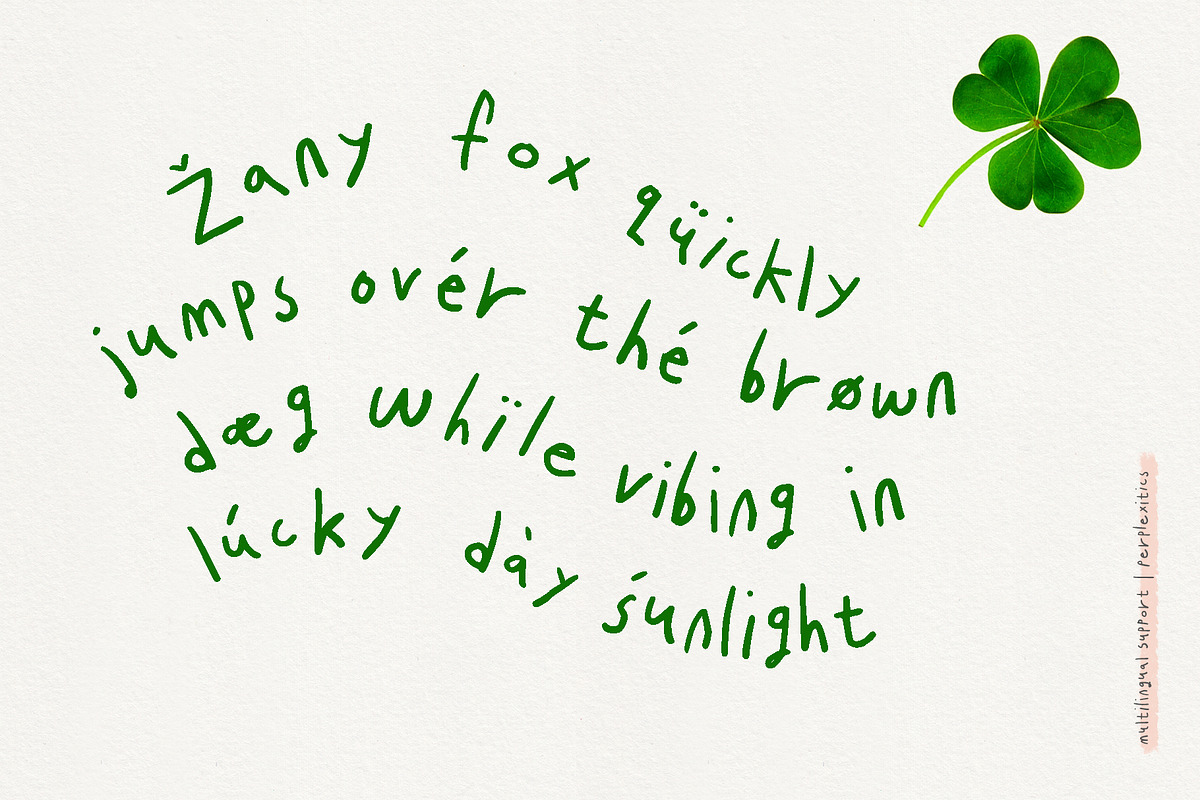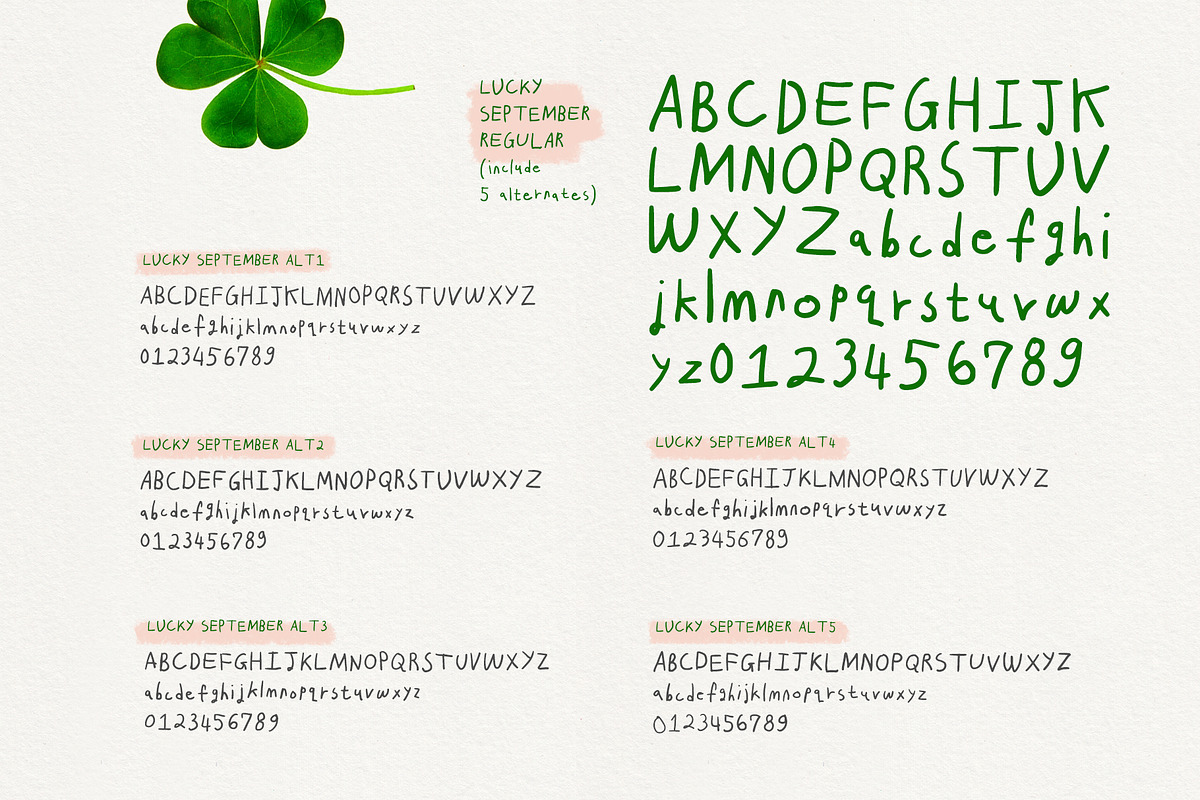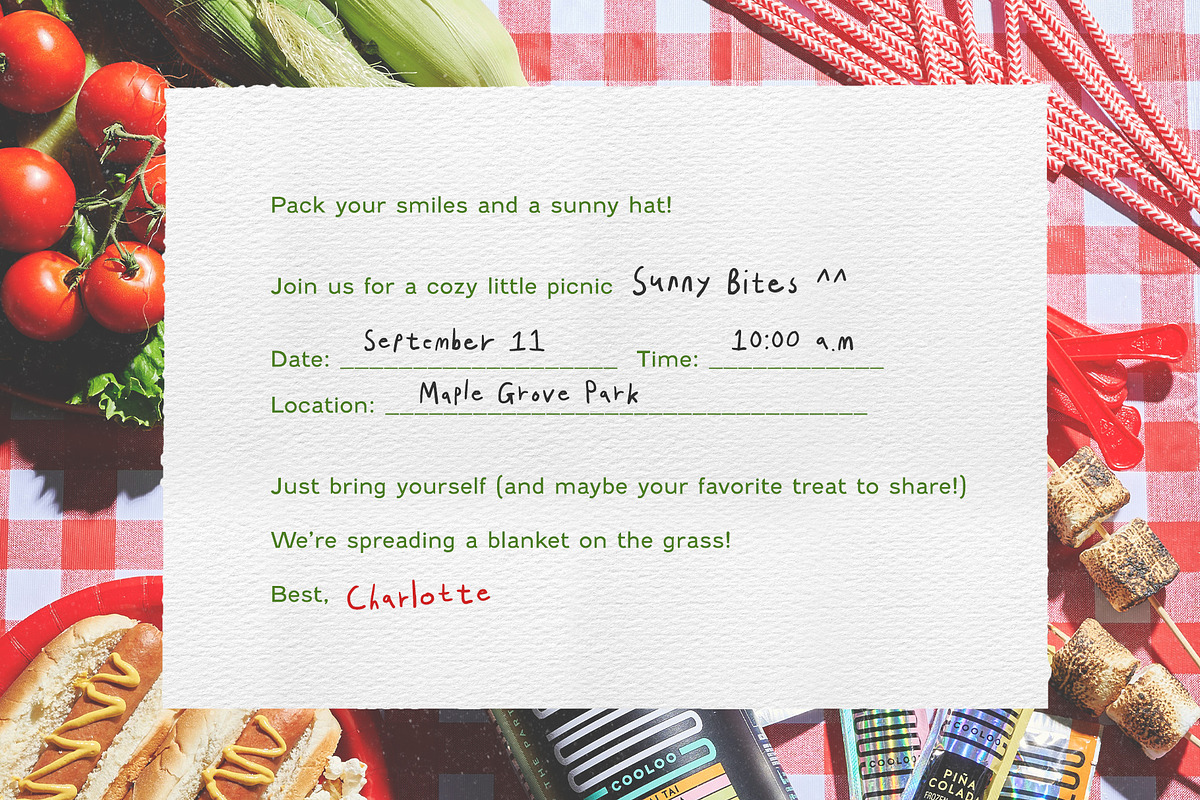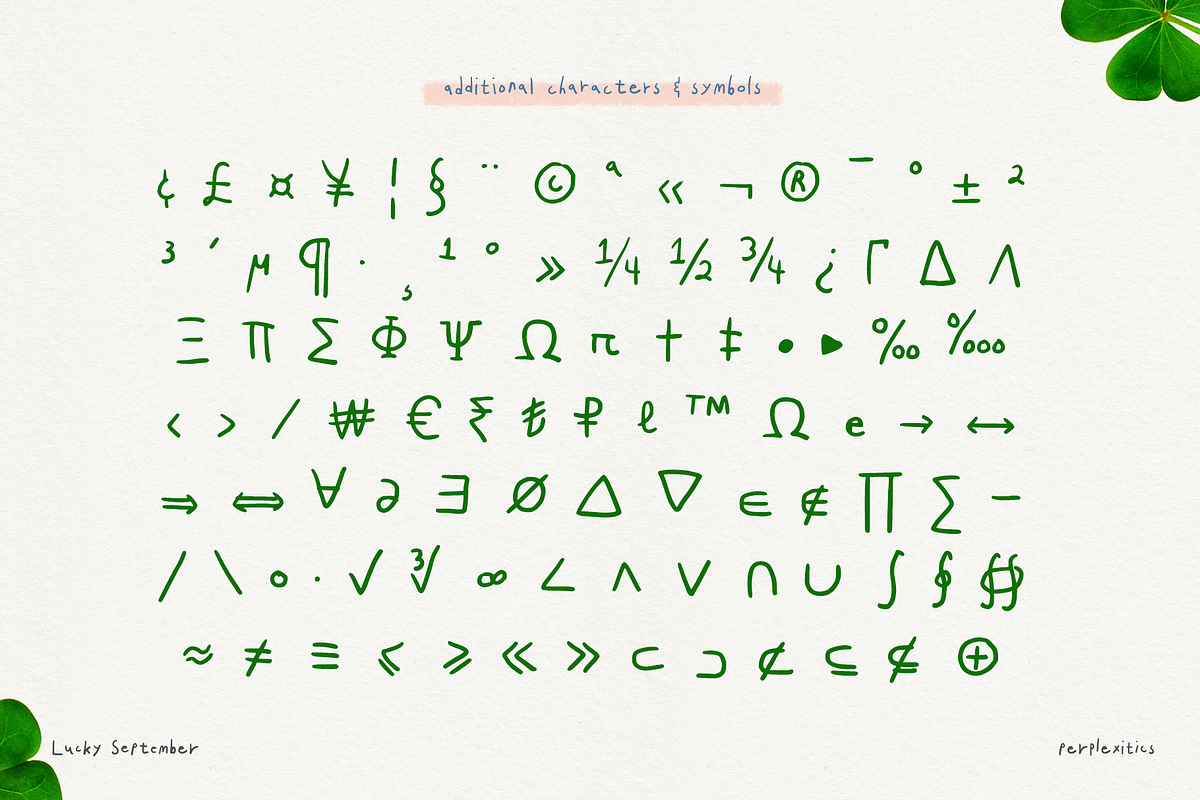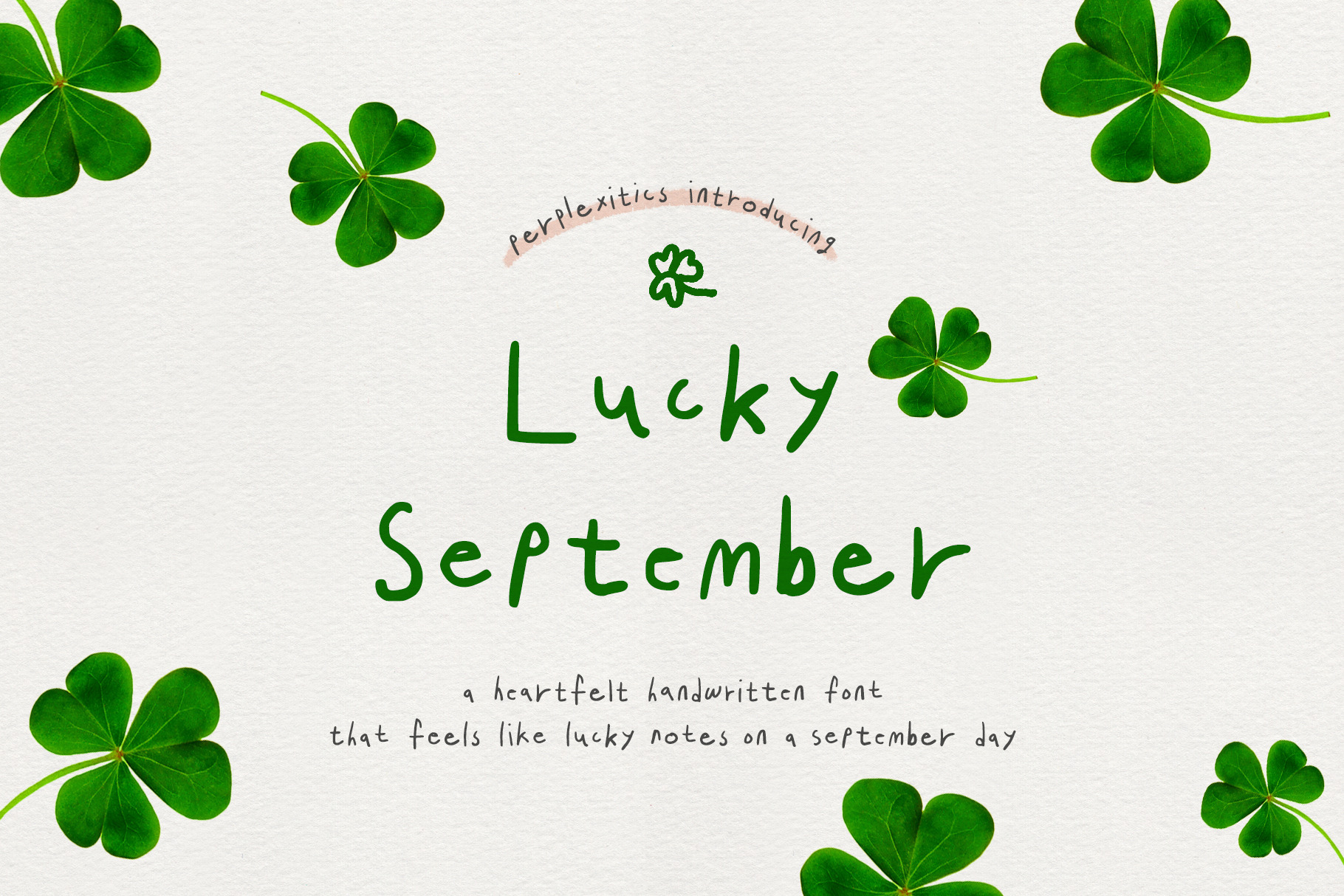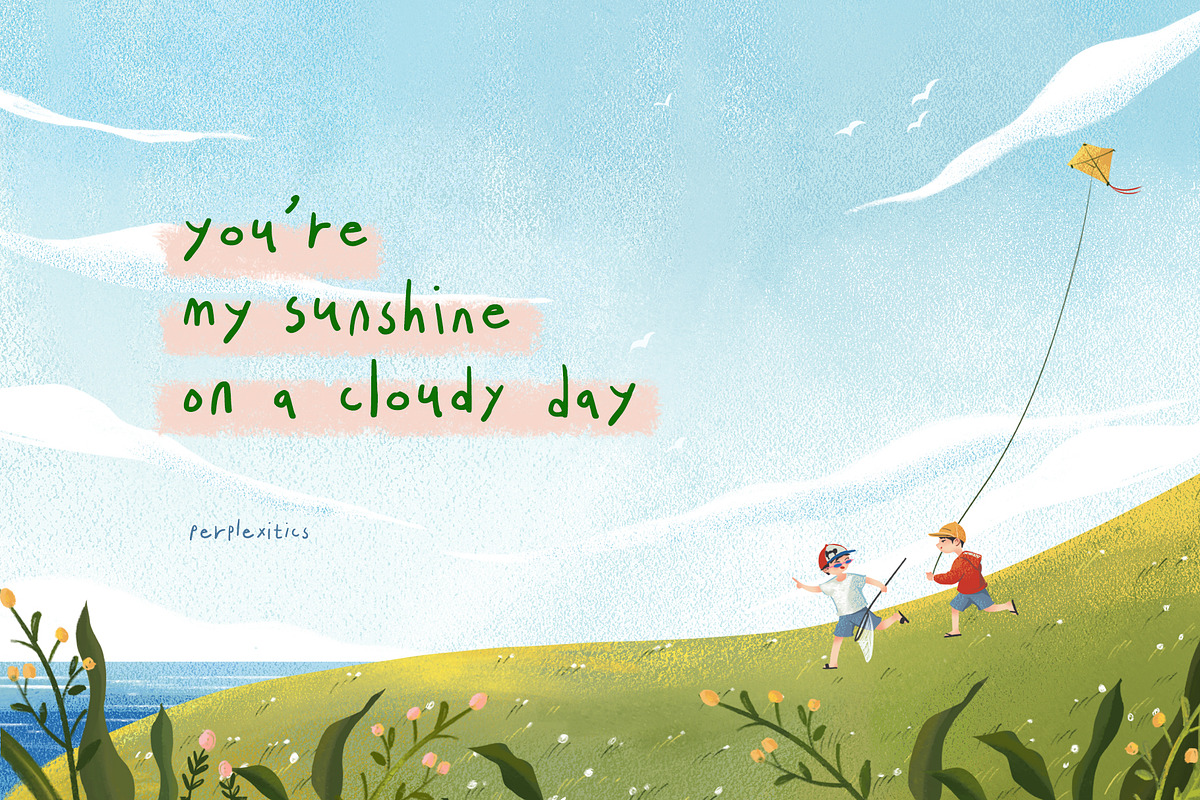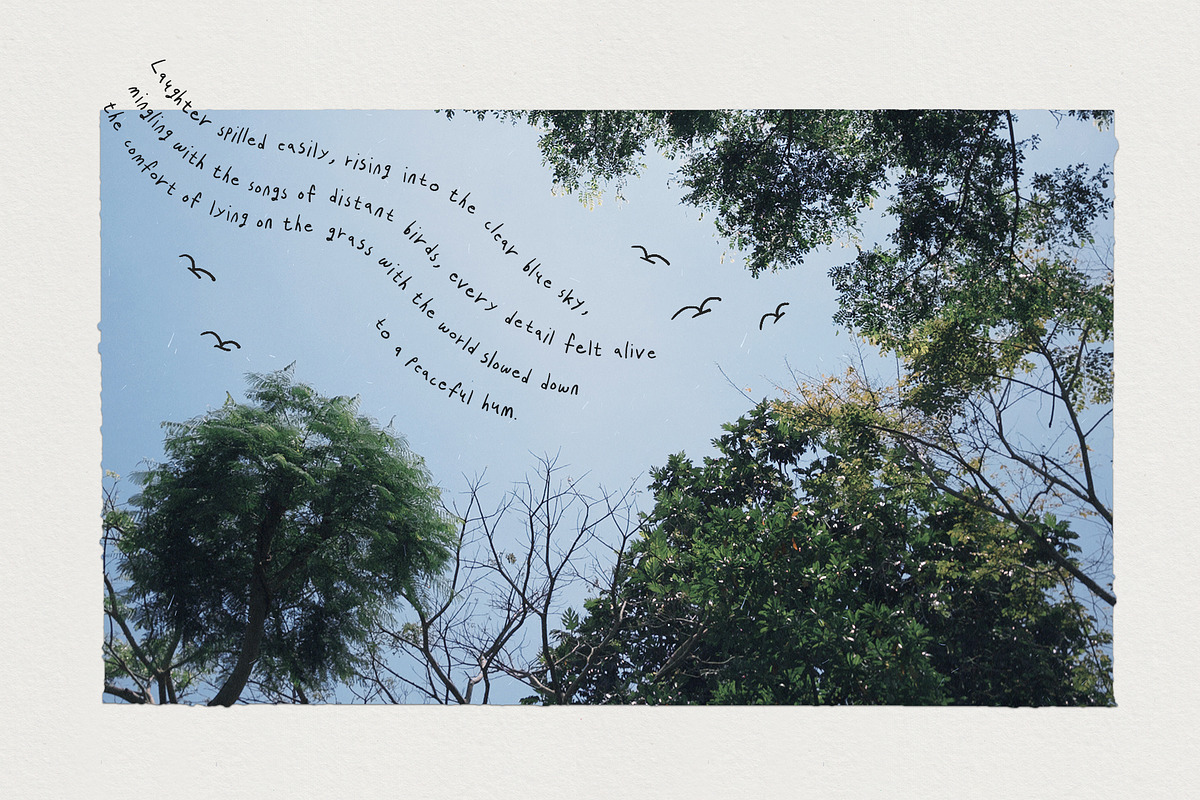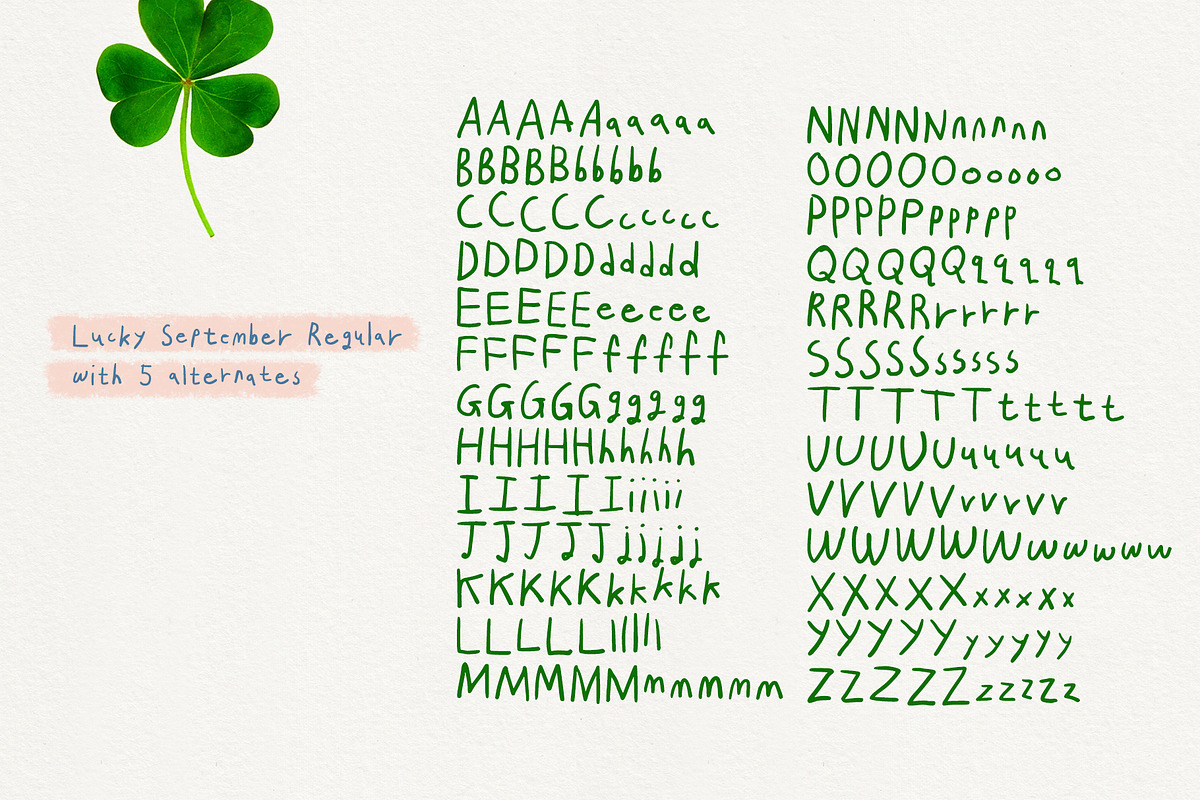
Lucky September Handwritten Font
Lucky September Font is a handwritten font with 5 beautiful alternates. Imperfectly authentic, it brings a natural handwritten touch to logos, notes, invitations, and everyday designs. Lucky September Font is packed with everything you need, including uppercase and lowercase letters, numbers, punctuation, and alternates. Multilingual support.